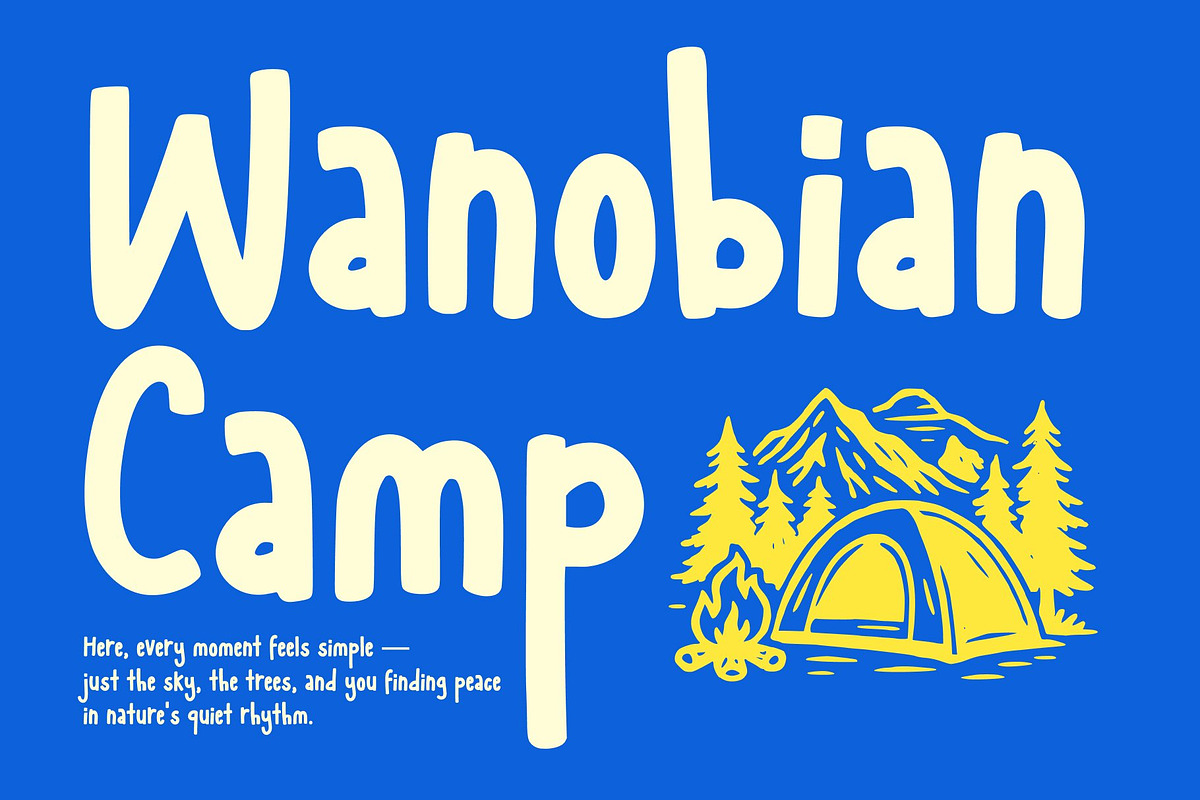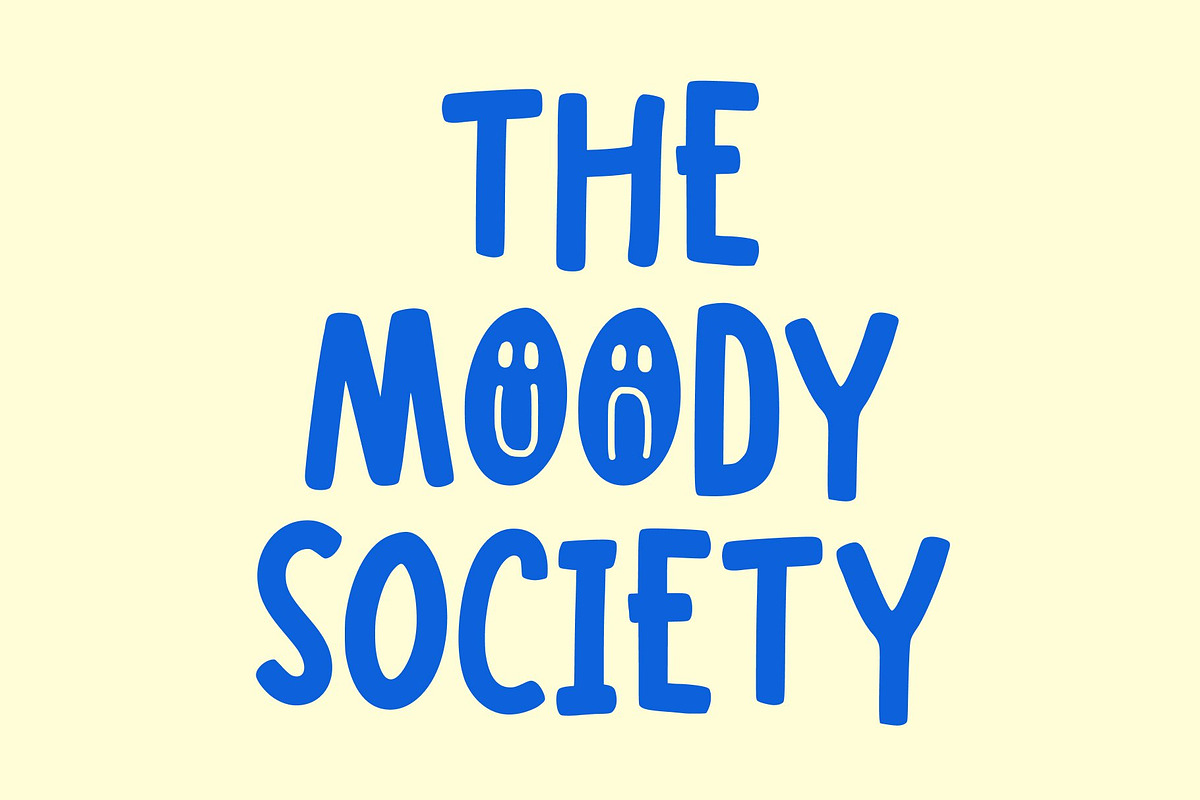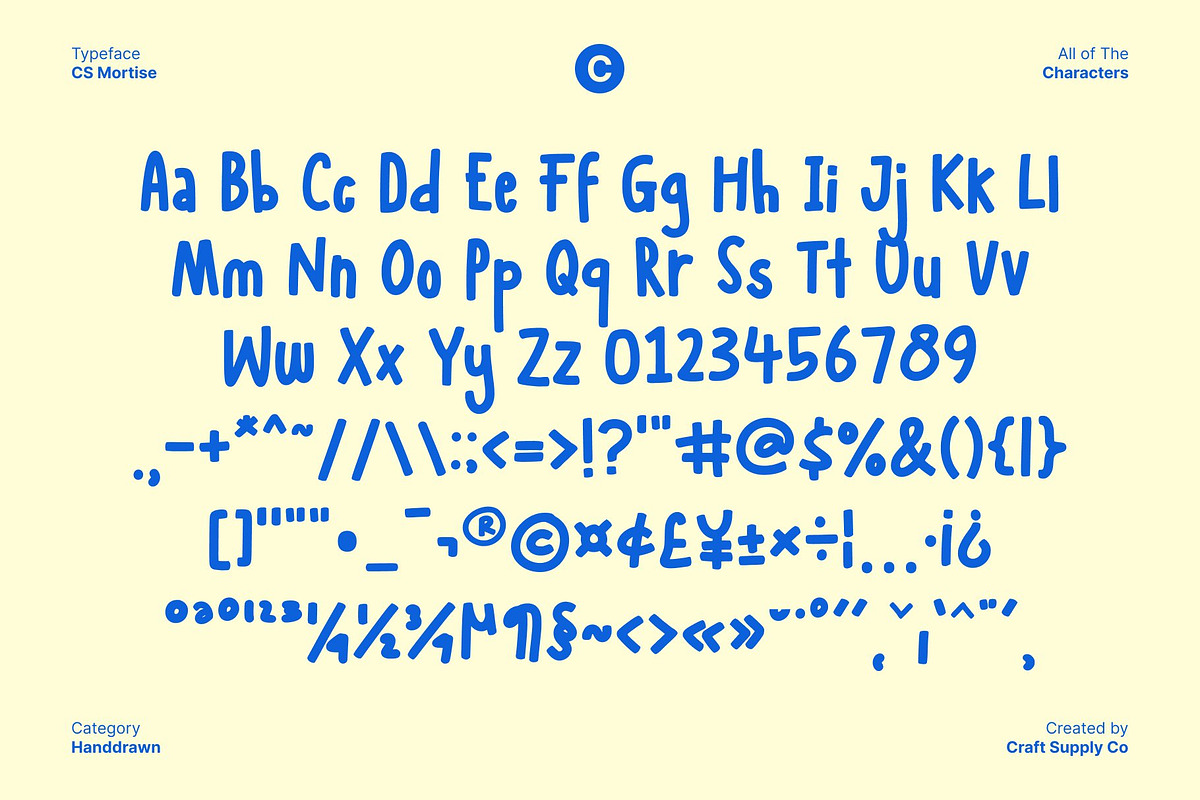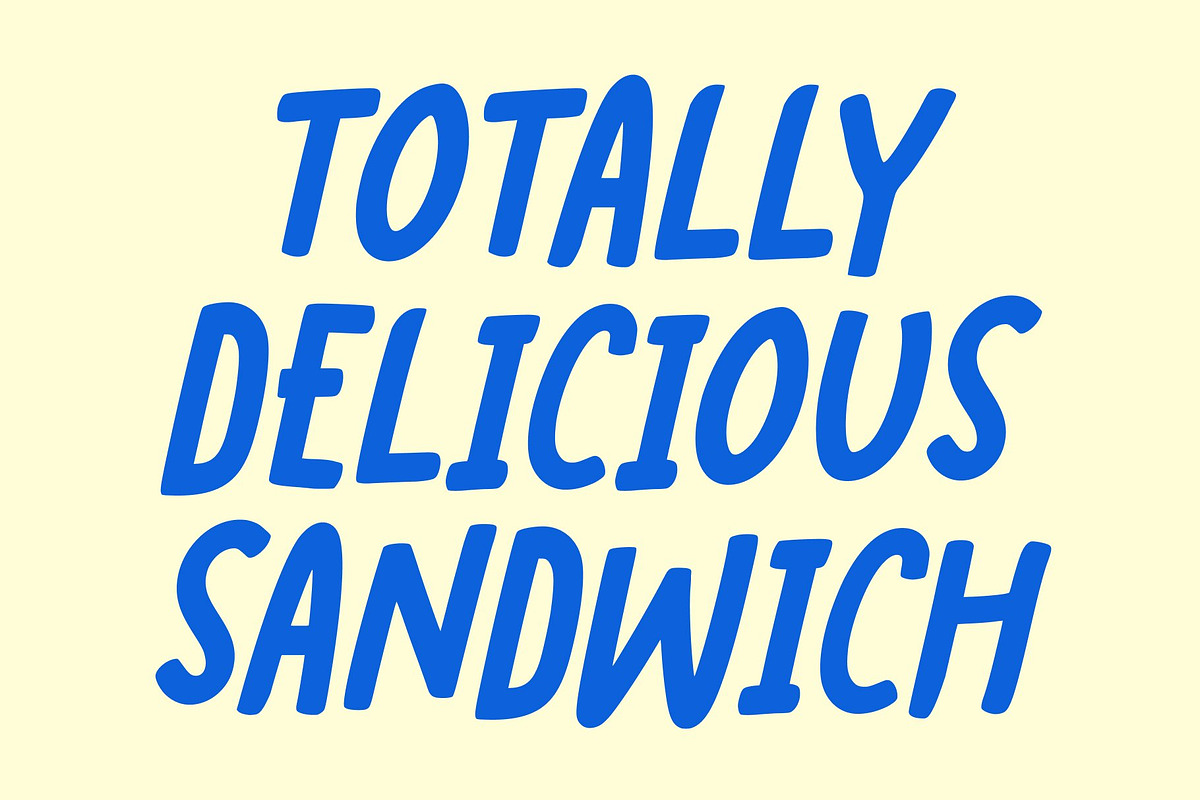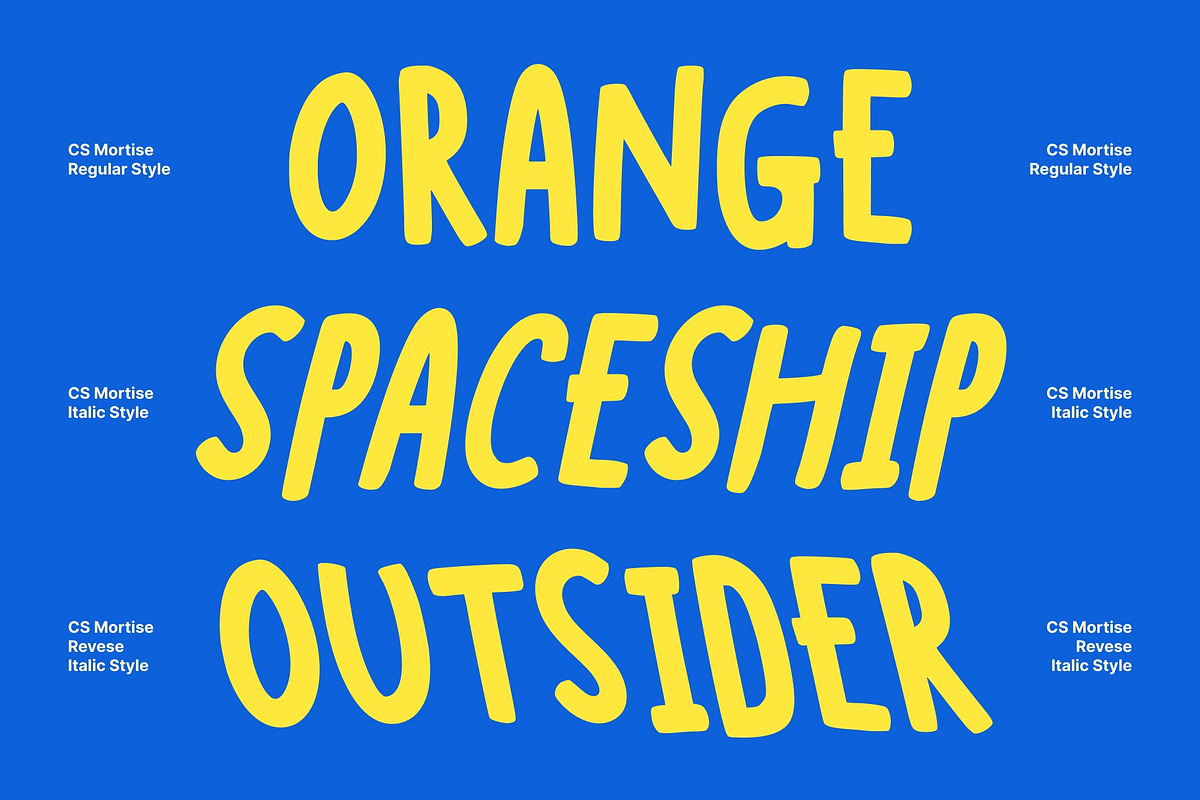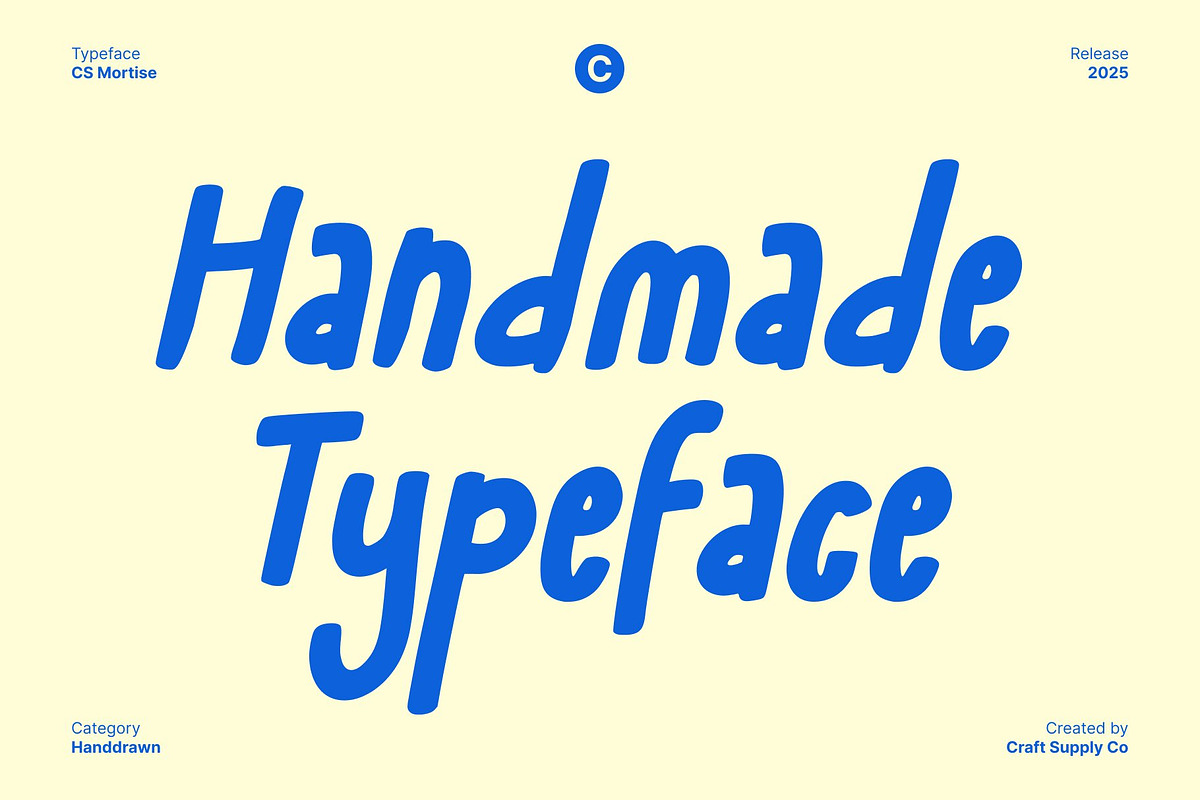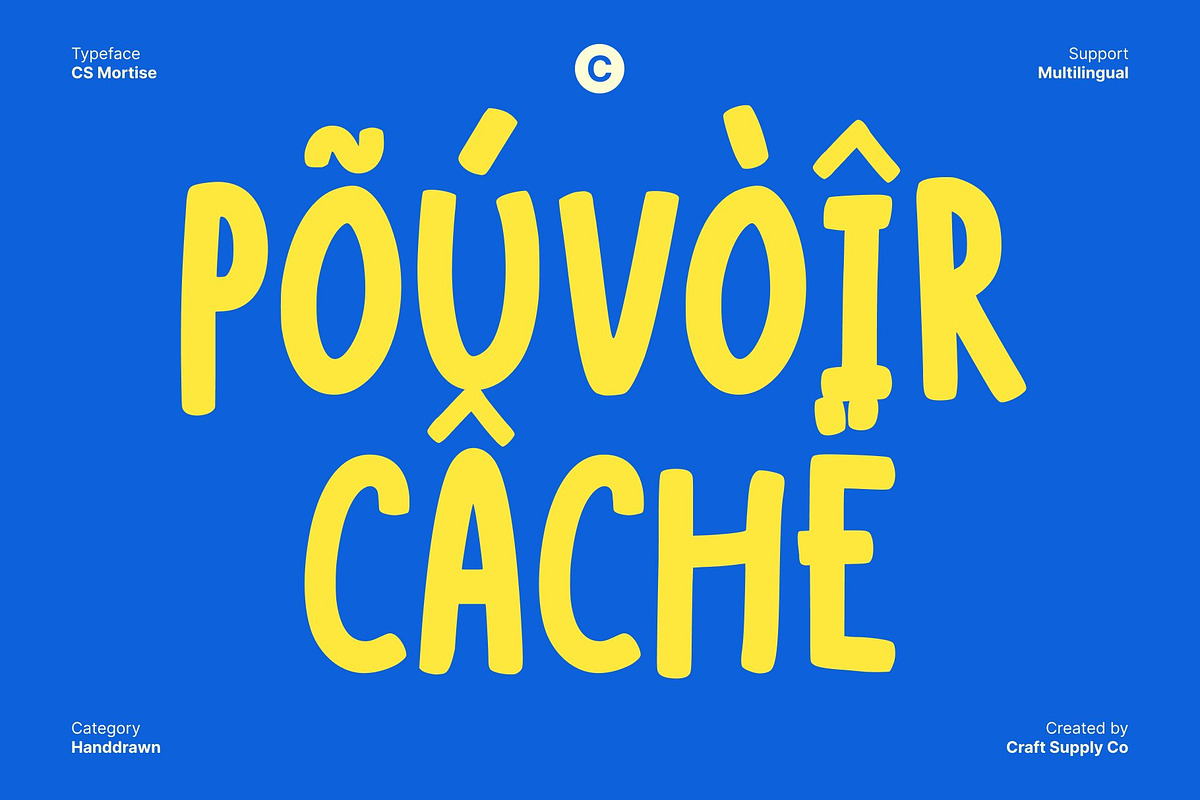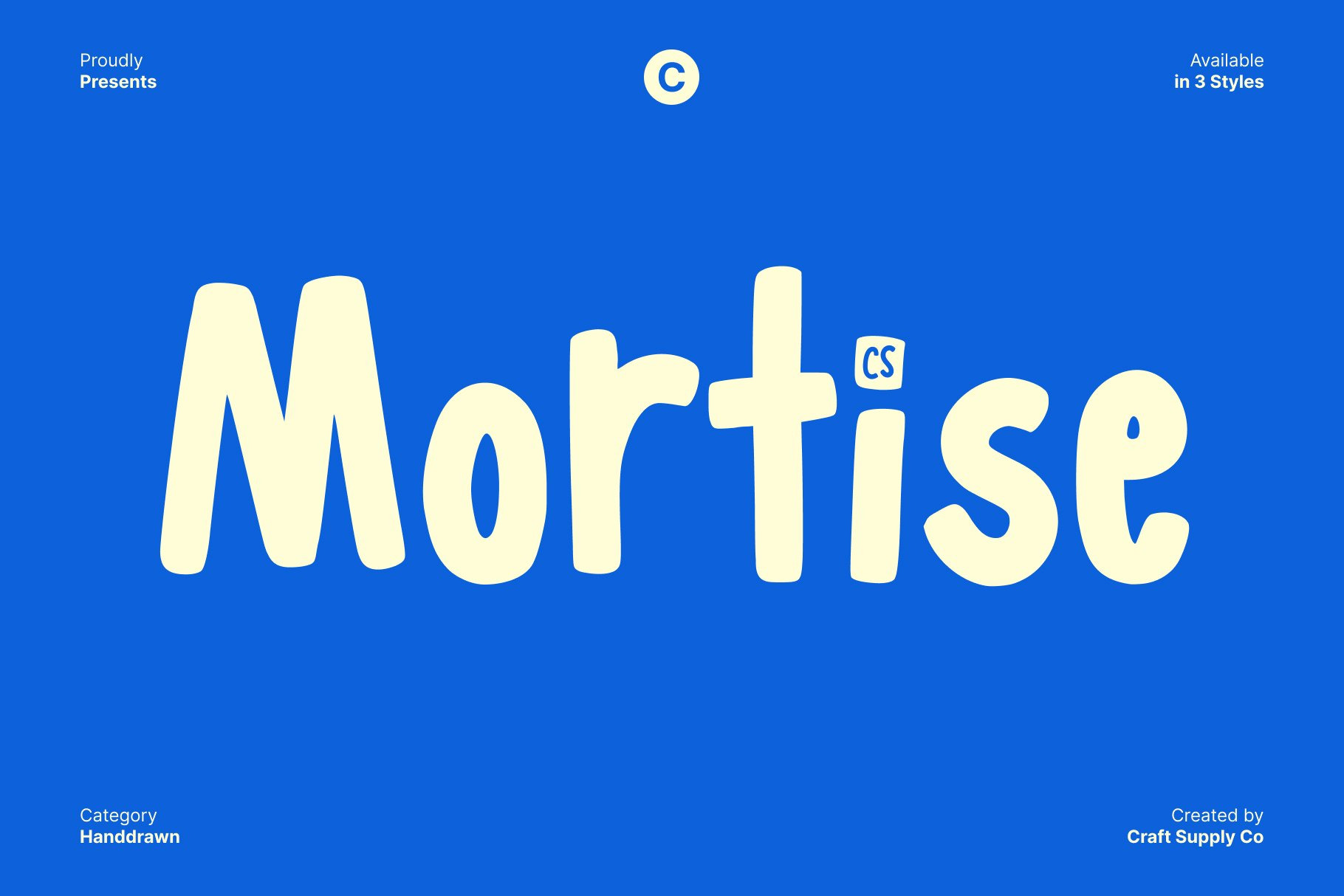
CS Mortise – Fun Handwritten Font
CS Mortise – Casual Charm with Hand-Drawn Personality
Handwritten Display Font This is a friendly and expressive handwritten-style display font, designed to bring warmth and casual charm to any text. Its hand-drawn details create a personal touch, making every character feel unique and engaging.
Organic Forms for Approachable Design The fluid, natural shapes of this font lend an approachable and playful tone, perfect for projects that need a human, handcrafted feel. Its rounded edges and lively strokes make it ideal for posters, branding, or editorial layouts that aim to connect with audiences.
Expressive Energy for Creative Projects With its expressive, dynamic style, this font injects energy and personality into any design. Whether for social media graphics, lifestyle branding, or fun publications, the font ensures your content stands out with a warm, authentic voice.
Versatile for Diverse Applications This font balances casual friendliness with design flexibility. It works seamlessly for invitations, packaging, posters, or playful editorial projects, offering a handcrafted aesthetic that enhances both professional and creative compositions.
- CS Mortise Regular
- CS Mortise Italic
- CS Mortise Reverse Italic